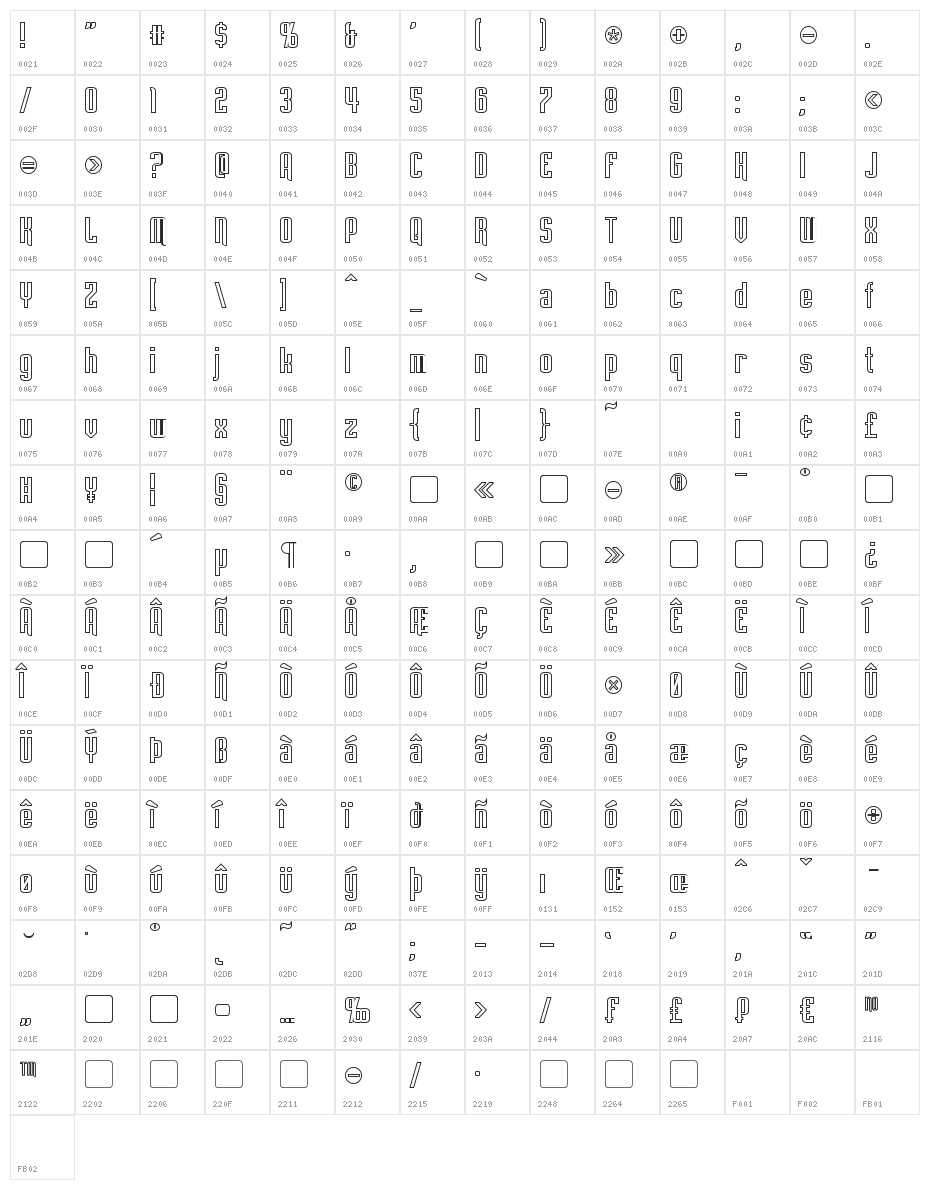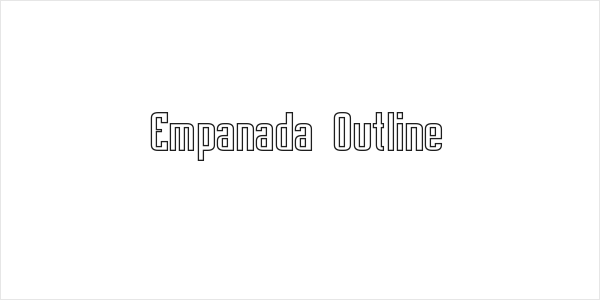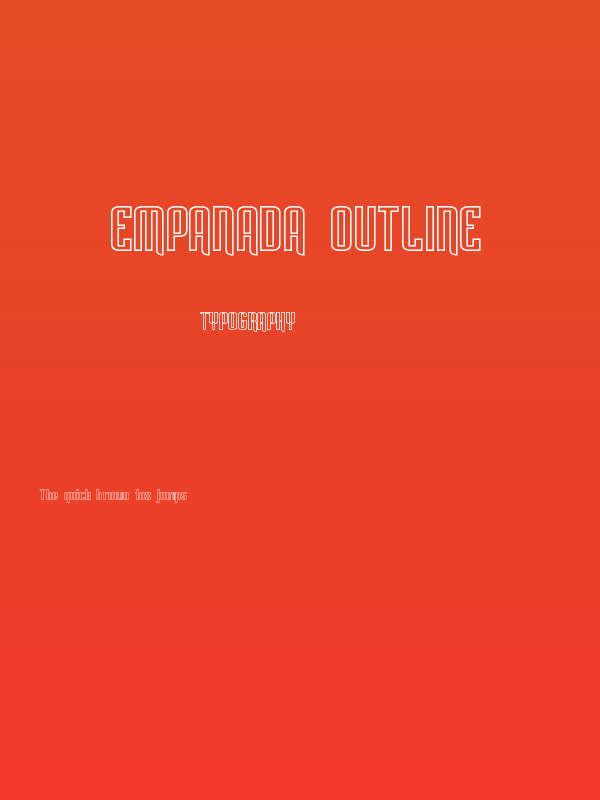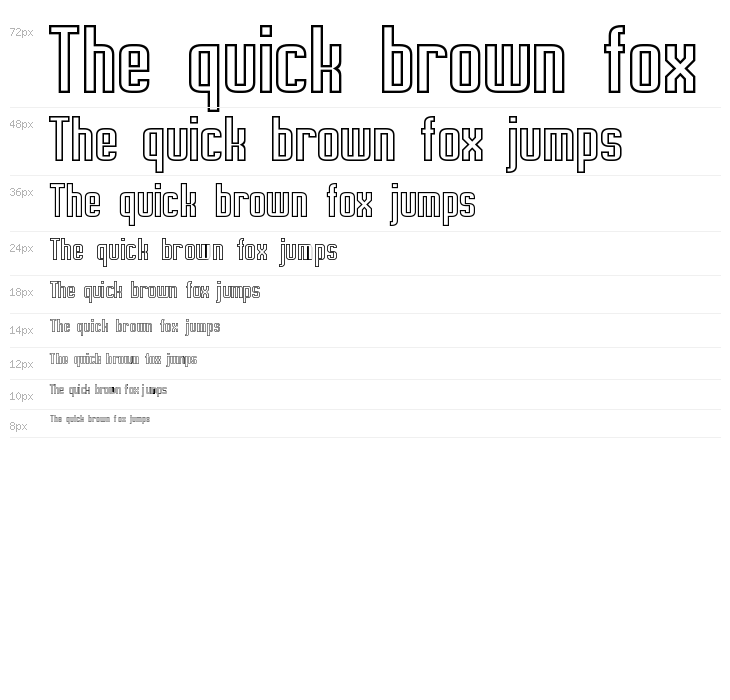
Empanada Outline Font
Empanada Outline Description
This font features a bold, outlined style that gives it a striking and modern appearance. The characters are uppercase and lowercase letters, numbers, and a variety of special symbols. Each letter is defined by a thick, uniform outline that creates a hollow effect, making it ideal for designs that require a bold statement without overwhelming the viewer. The geometric shapes of the letters add a contemporary feel, while the consistent line thickness maintains a clean and organized look. This font is particularly suitable for projects that aim to capture attention and convey a sense of modernity and innovation.
| Proposed Projects | Ideal for headlines, posters, branding, and any design needing a bold, modern touch. |